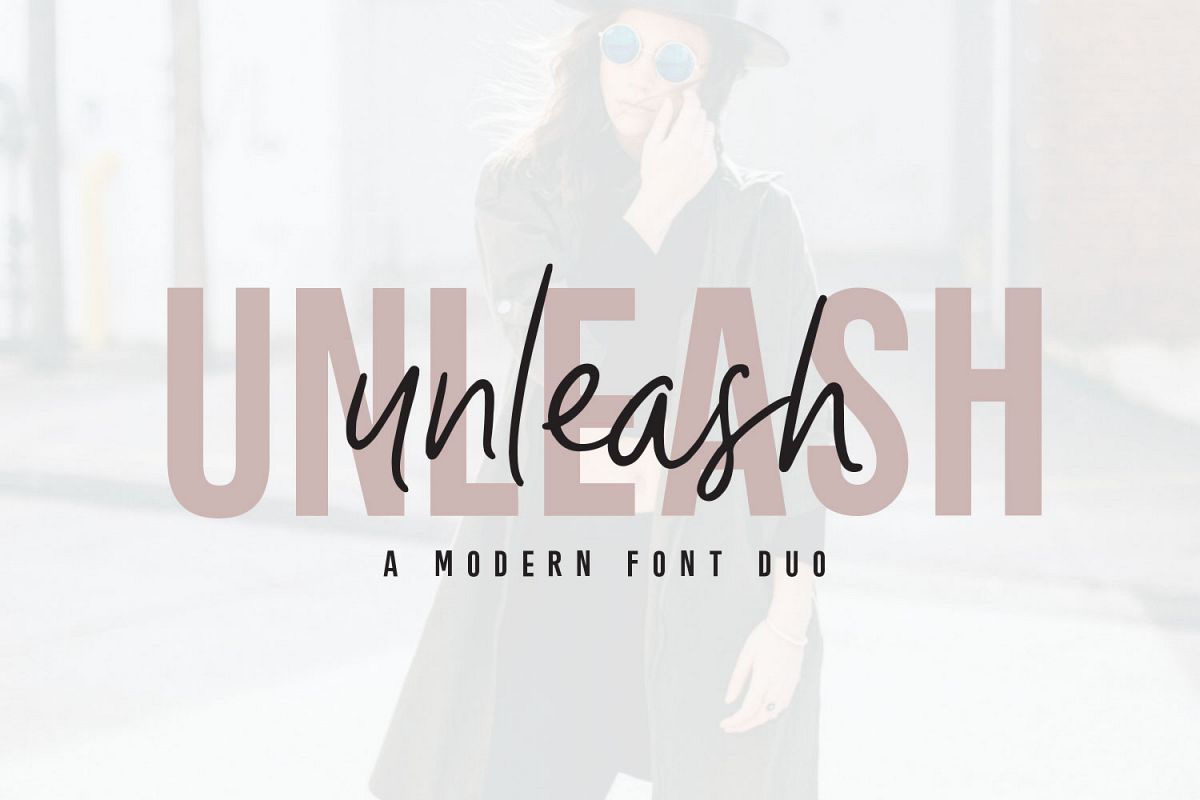
Unleash
Introducing the Unleash Handwritten and San Serif Duo, a modern and edgy font duo. This font duo includes a handwritten script paired with a bold and clean all caps sans serif. Put these together for the perfect font pairing to use for logos, brands or headings.
** 1. Unleash Handwritten Regular ** - An edgy handwritten script that contains upper and lowercase characters, number 0-9 and a range of punctuation and symbols. * If you have any trouble finding certain characters you can access them via the glyphs panel. *
** 2. Unleash Handwritten Alternative ** - This is a set of alternative characters to Unleash Handwritten Regular. You can use this font by itself, or use it to replace some characters when using the Regular style, especially when using the same letters frequently. This helps to break up the words, change the shape of the words and make the font look more handwritten.
** 3. Unleash Handwritten Ligatures ** - This is a set of ligatures that will work with the Handwritten fonts. These can be used when you have two of the same letters next to eachother to help make the font look more handwritten. Type a-z lowercase to see the available ligatures, or access them via your glyphs panel.
** 4. Unleash San Serif Regular ** - A bold, clean and modern all-caps San Serif. This font is great for headings and pairs perfectly with the Unleash Handwritten.
Unleash